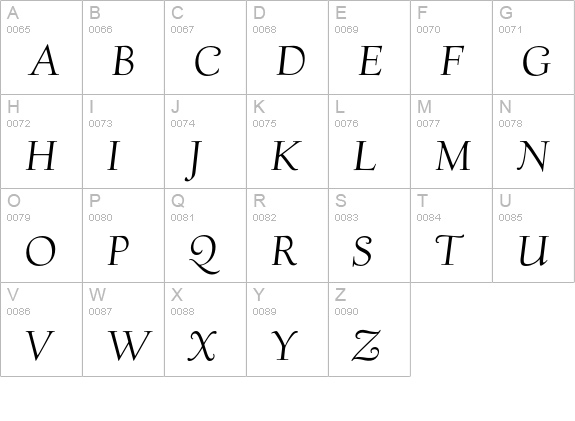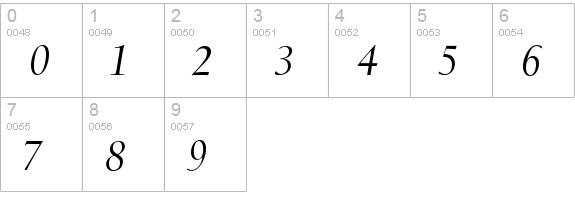
Village-ItalicTitling font is a stunning display typeface that exudes a sense of elegance and sophistication. Its sleek and slanted design adds a touch of modernity to any project, making it perfect for attention-grabbing headlines, logos, and branding materials. This font features a unique combination of sharp edges and flowing curves, creating a harmonious balance between boldness and grace. Its italicized form gives it a dynamic and energetic feel, allowing it to command attention and make a bold statement. What makes Village-ItalicTitling font even more appealing is that it is free! That's right, this remarkable typeface can be easily downloaded at FontsMarket.com without any cost. With its availability for free, designers and creatives can access this font and utilize its beauty in their projects without any constraints. Whether you're designing a magazine spread, creating a striking poster, or developing a captivating website, Village-ItalicTitling font will undoubtedly elevate your work to new heights. Its versatility and stylish appearance make it a perfect choice for a wide range of design applications. Don't miss out on this fantastic opportunity to enhance your design projects with Village-ItalicTitling font. Visit FontsMarket.com now and download this font for free. Unleash your creativity and let this font be the perfect companion in bringing your vision to life.